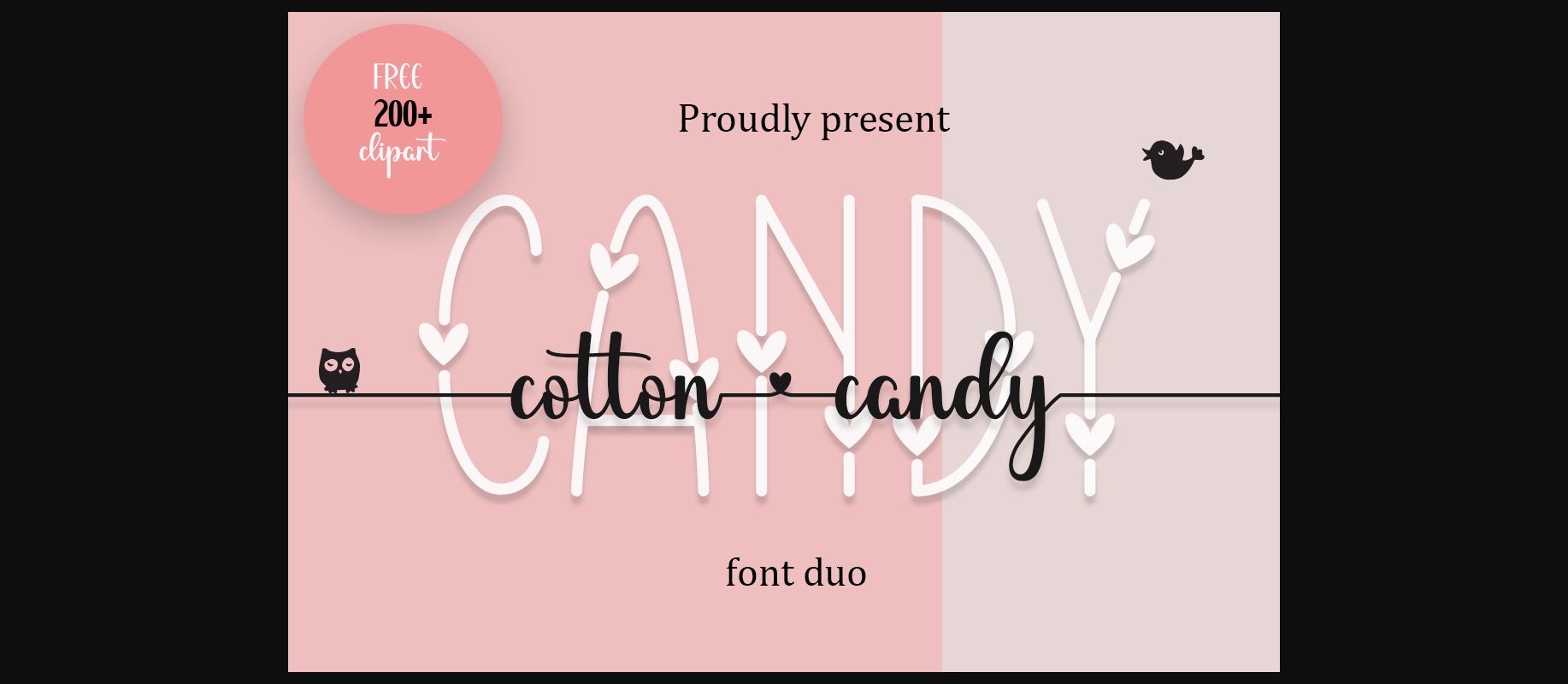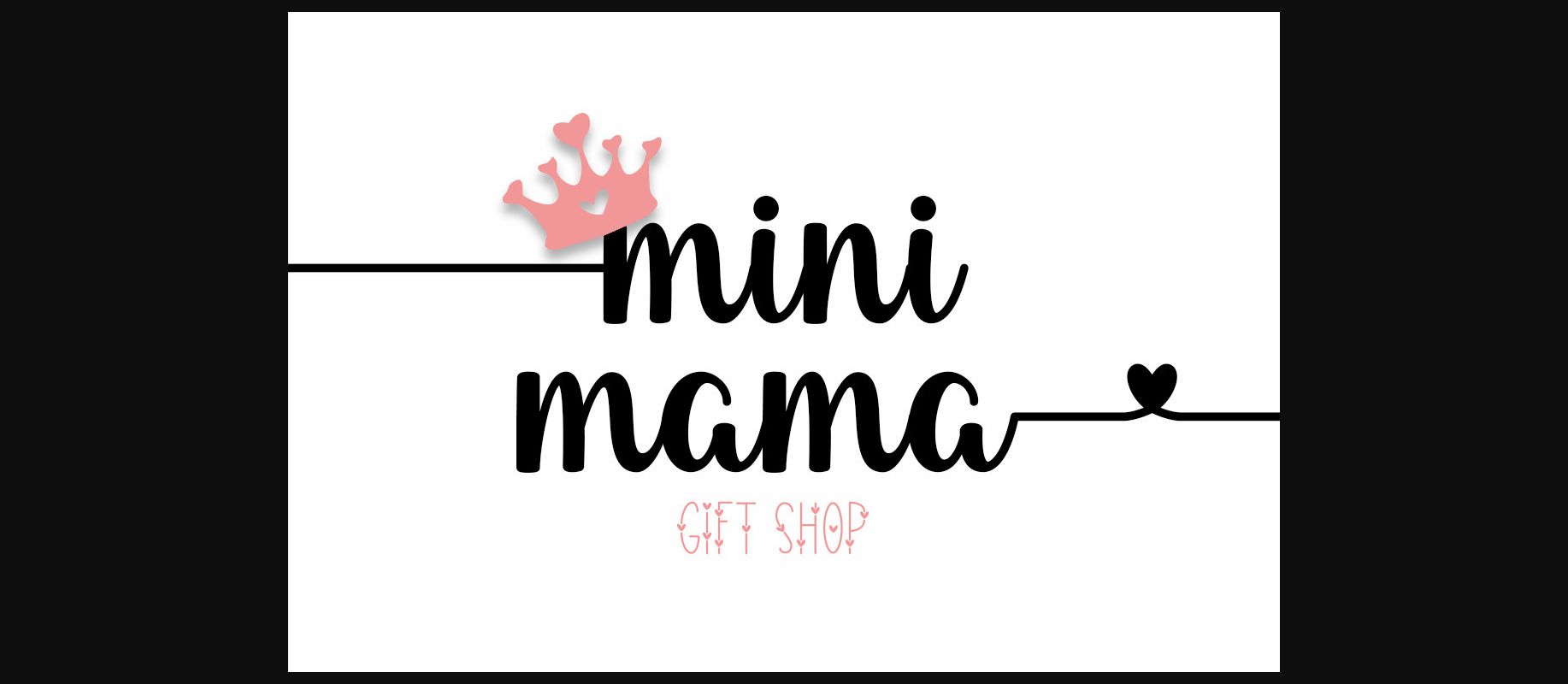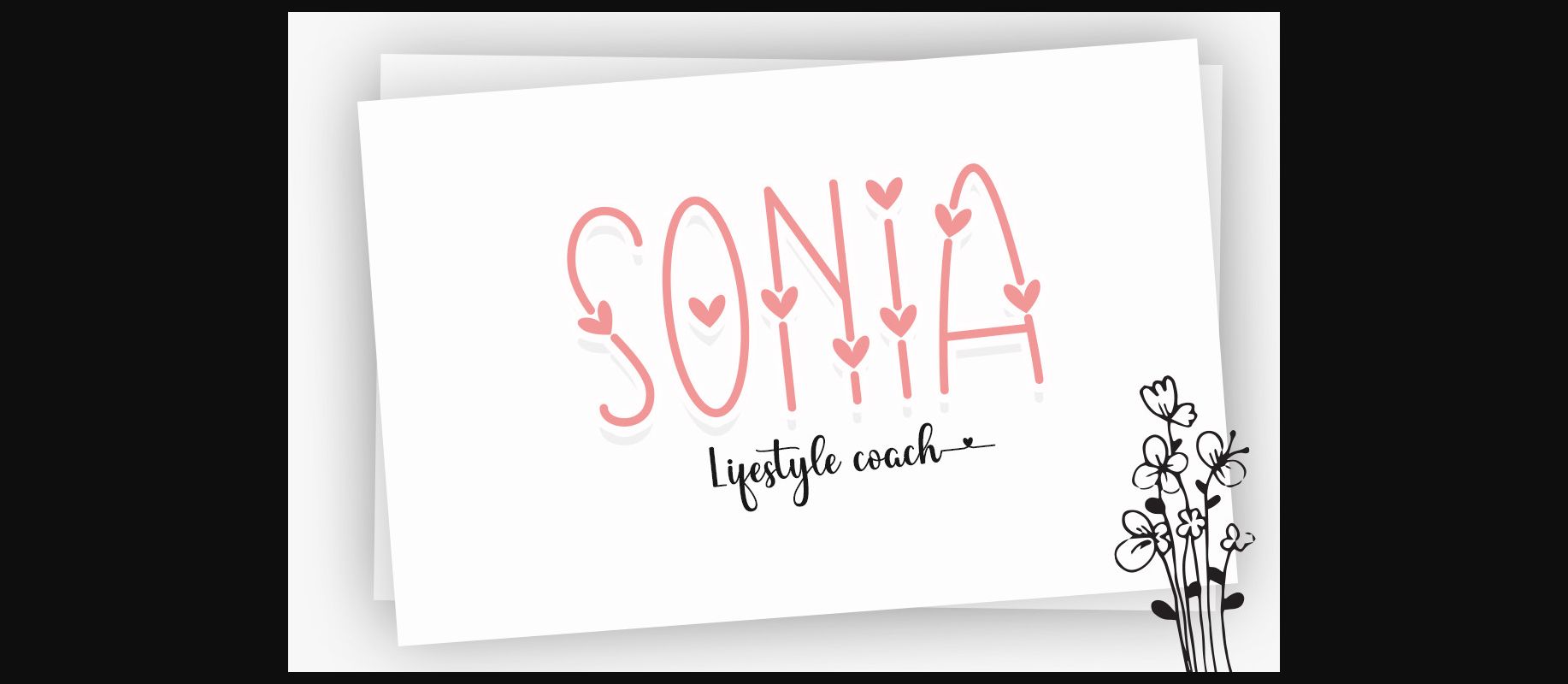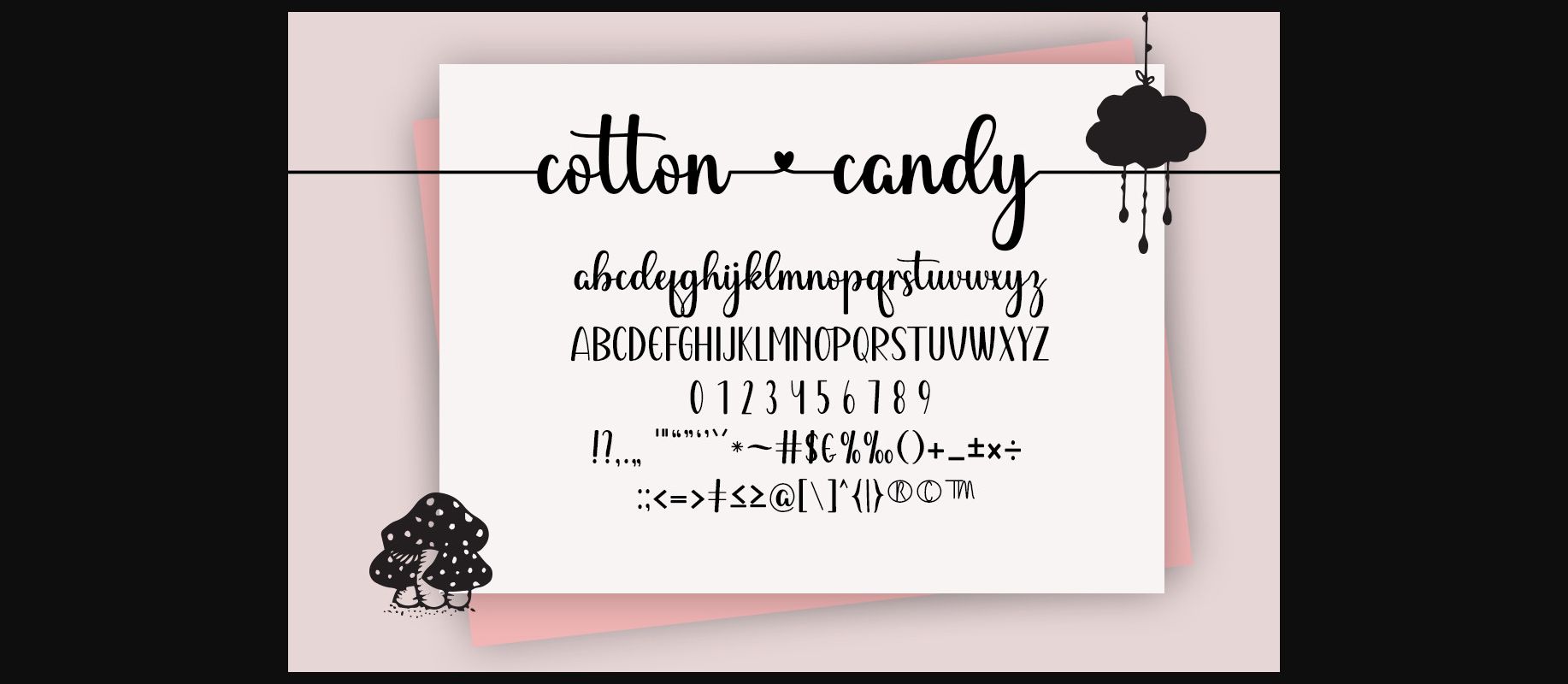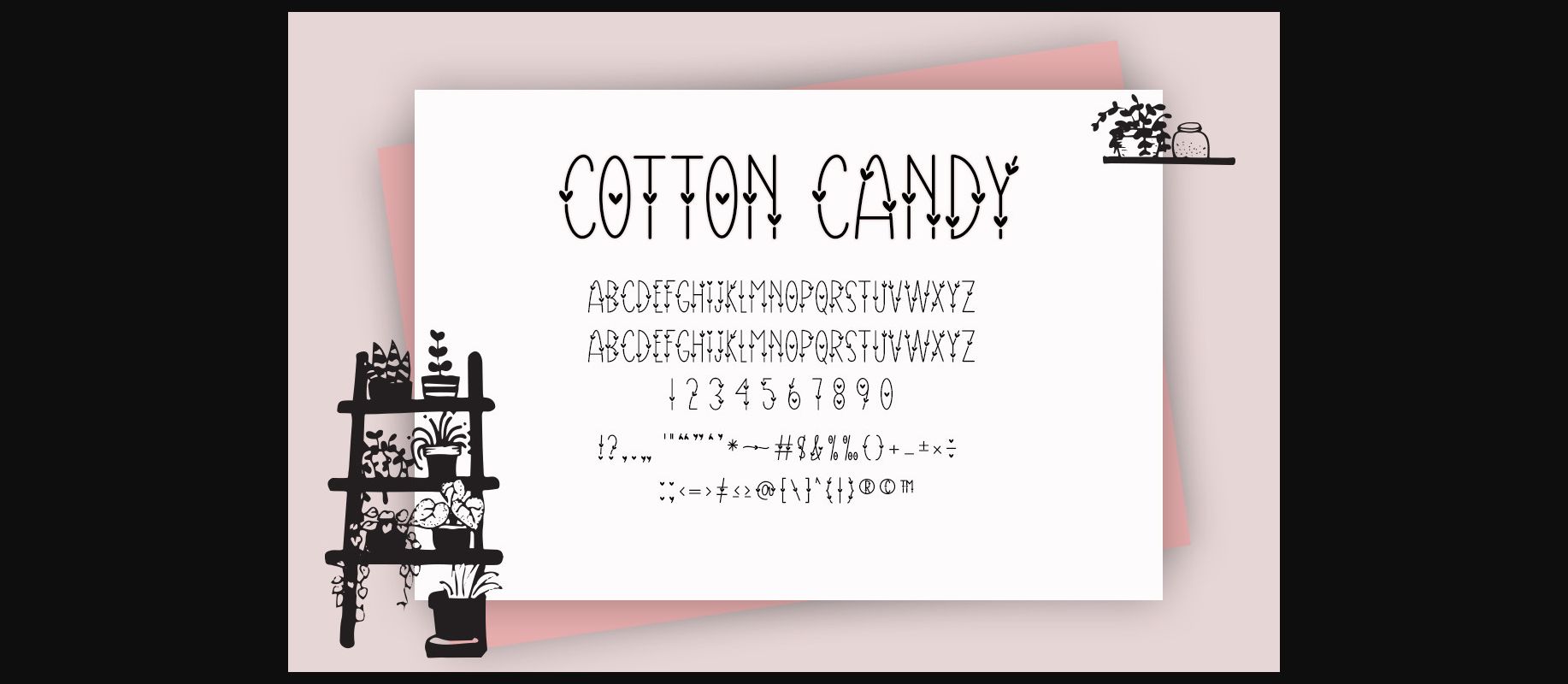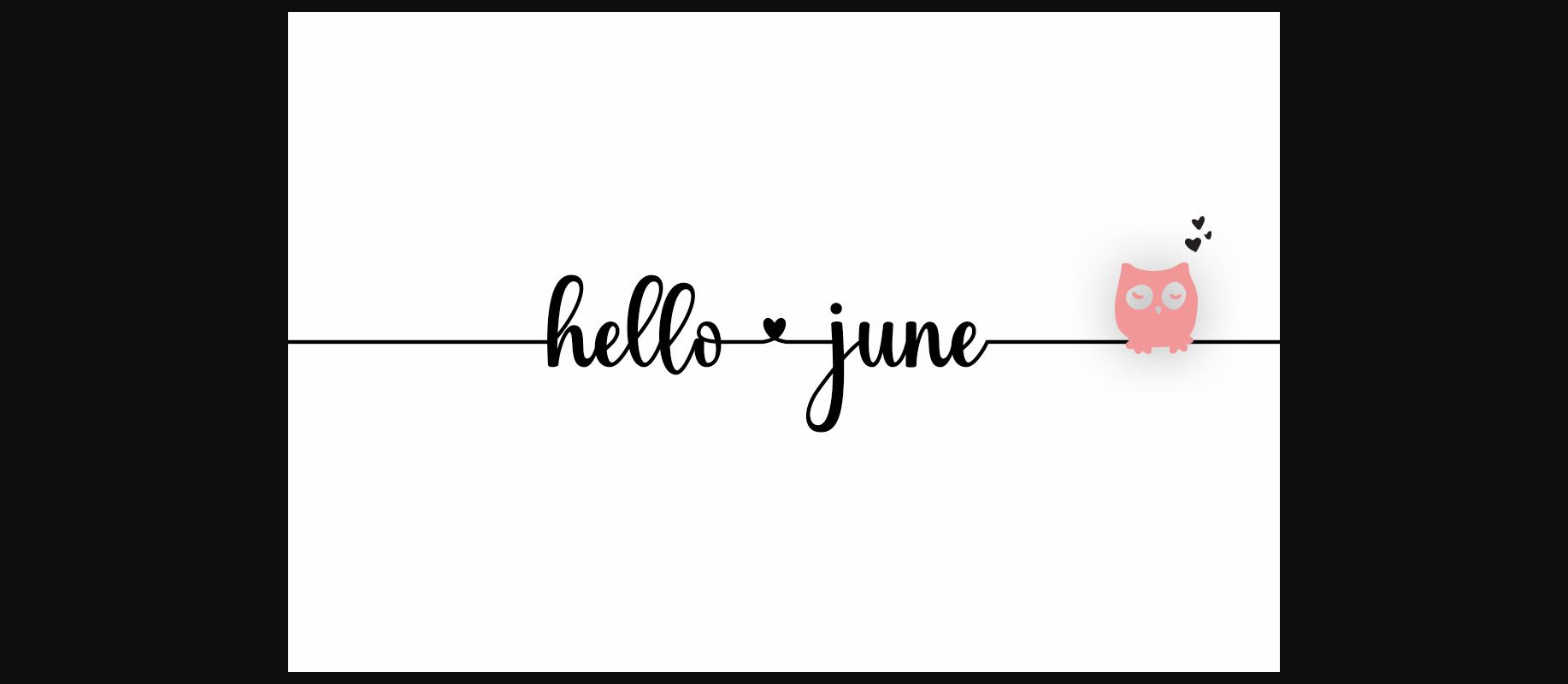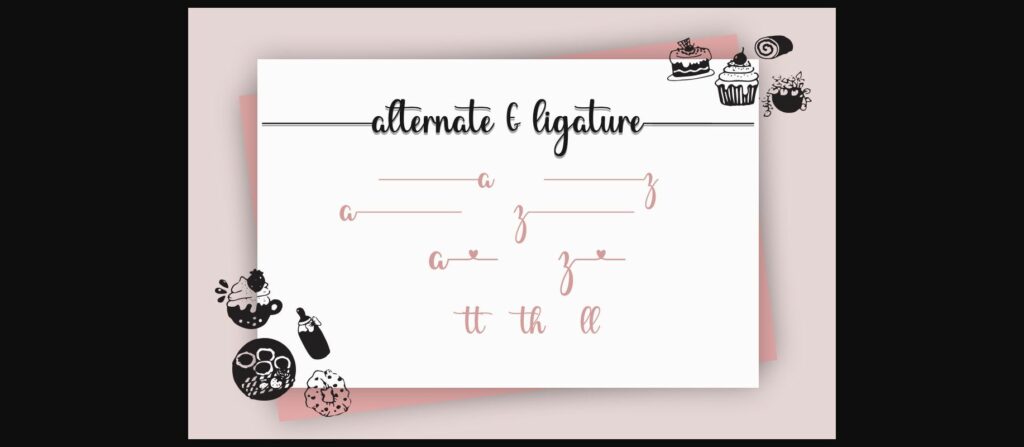
Cotton Candy Font
About Cotton Candy Font
Cotton candy is an elegant and playful duo font (decorative and handwritten). It features dainty and delicate swashes that will add an original, appealing look to a wide range of crafty ideas. Cotton candy is PUA encoded which means you can access all of the glyphs and swashes with ease!